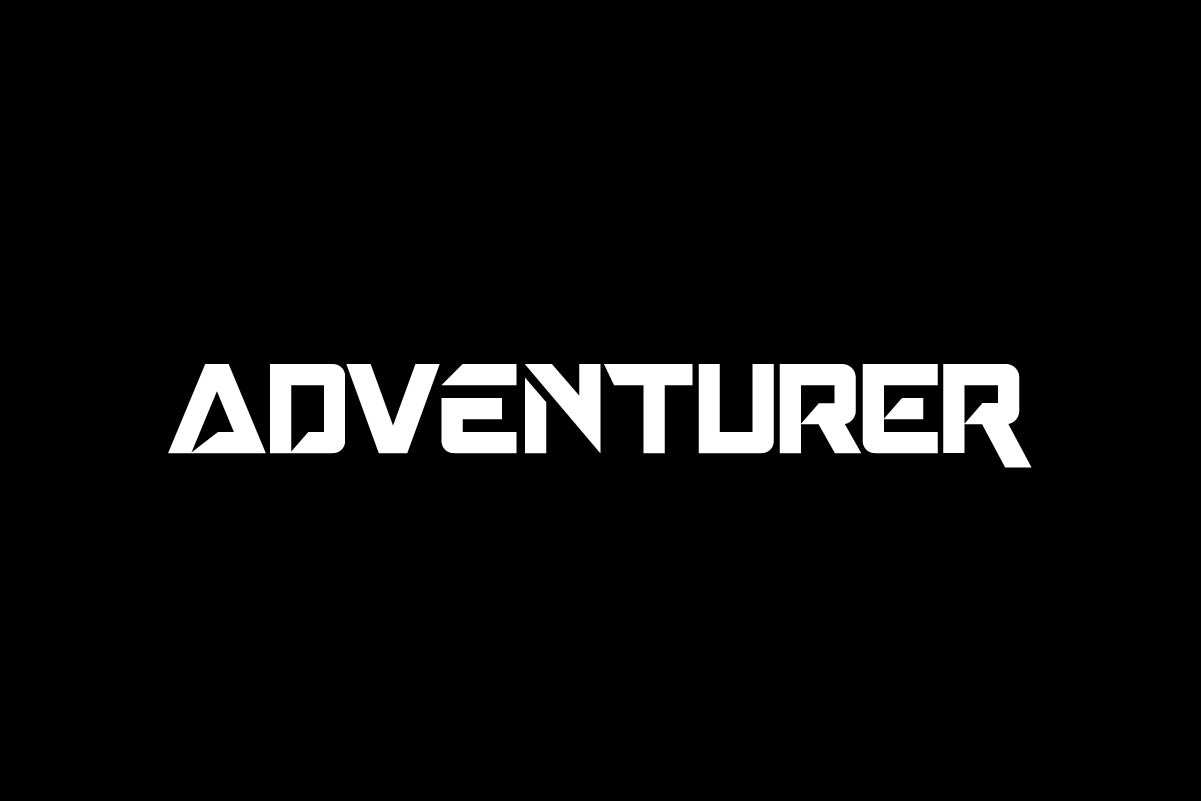
Adventurer Font
Adventurer Font is a strong and unique display font inspired from adventure trip designed by Rais Project. The font comes with exclusive letters style that is great for Movie, Game, Magazine, Music, Video, Sports, Racing etc
Adventurer Font is display font with exclusive style effect, inspired from people who love explore and go on adventure. You can see the demo font below. You can also input any word you want so you can see what it will look like :
Adventurer Font was handcrafted for any your special projects including : headlines, promotion, events, branding, advertising, magazine, signage, invitation, stationery, social media posts, label, or and any projects that need unique strong style. The theme/industries of this font is Movie, Game, Magazine, Music, Video, Sports, Racing etc